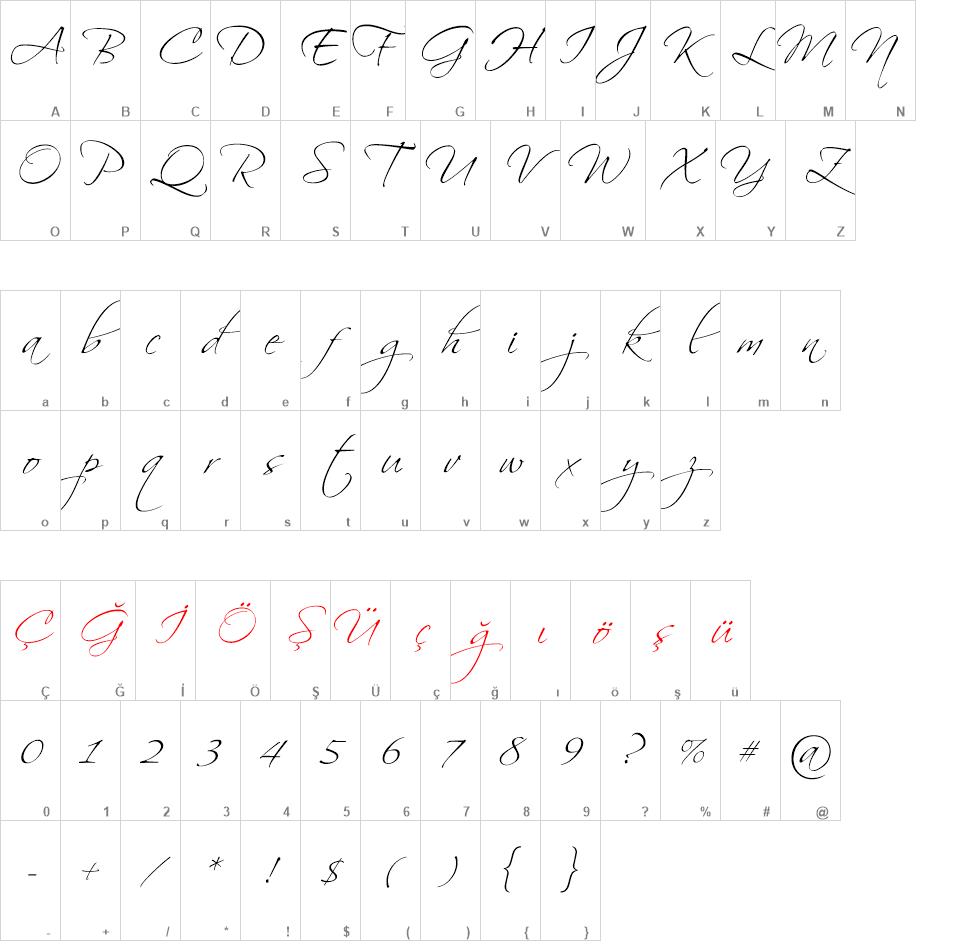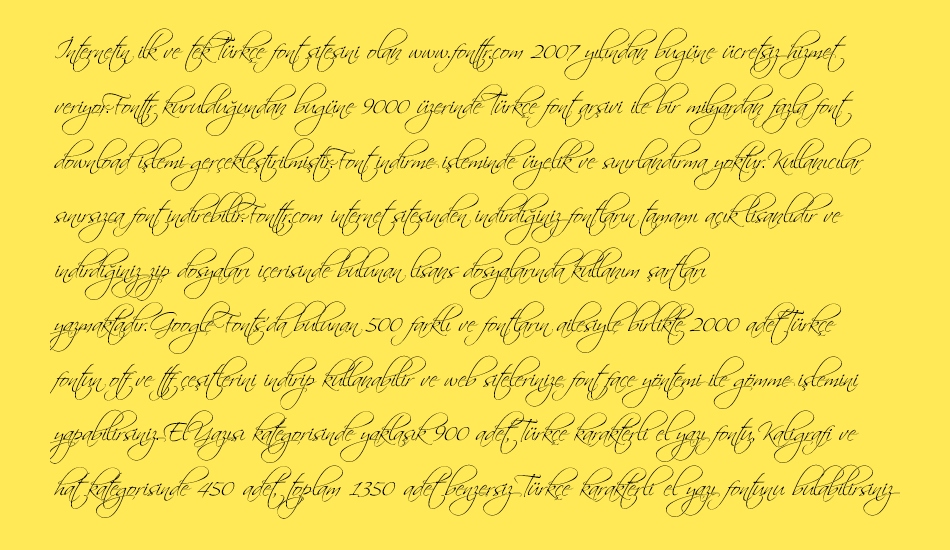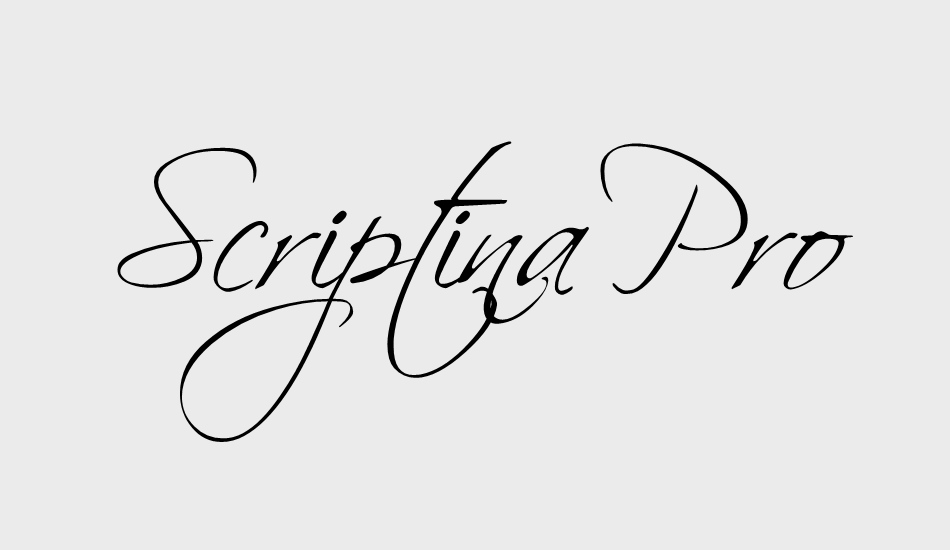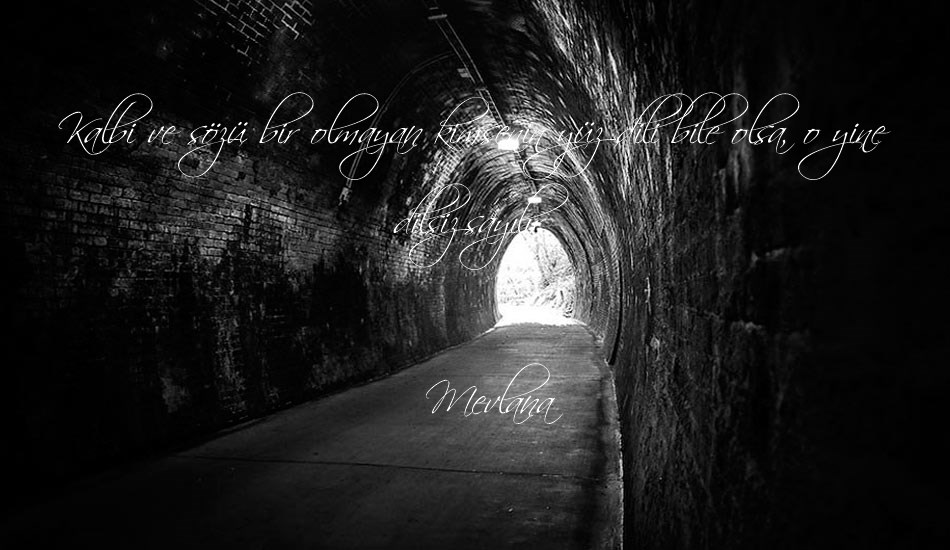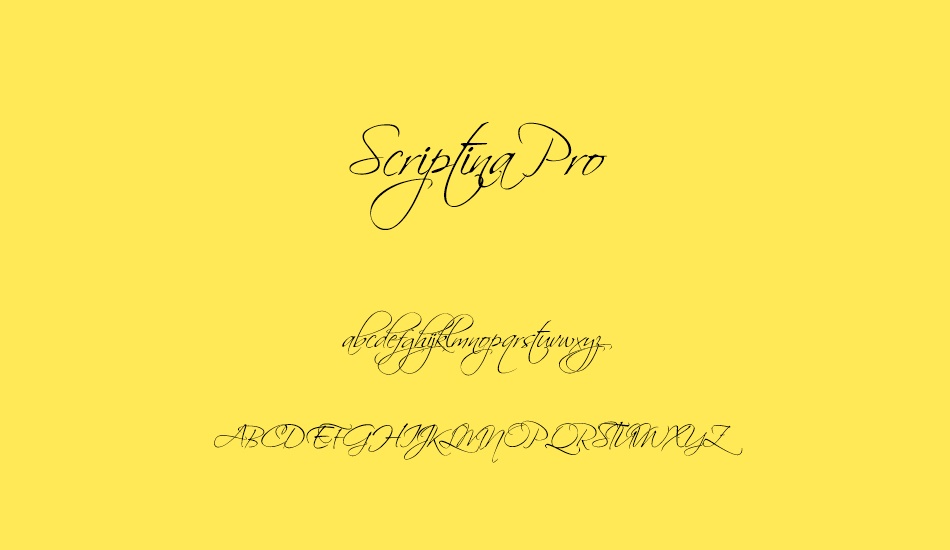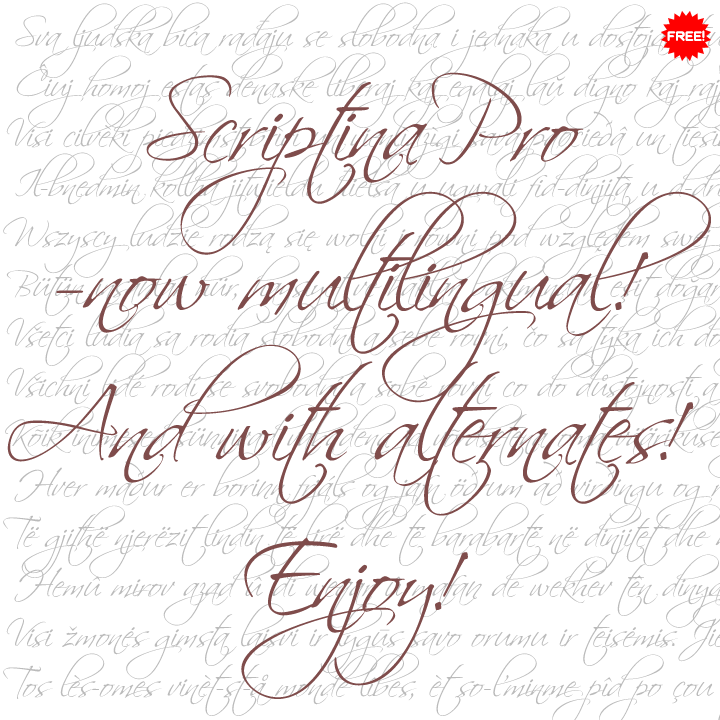
Scriptina Pro font
Scriptina Pro
This is the 100th font released by CheapProFonts, and I wanted to make something special - so I have chosen to upgrade one of the most popular free fonts ever: the one and only Scriptina by the infamous Fredrick "Apostrophe" Nader!
After first cleaning up the outlines, spacing and kerning, Scriptina Pro has been expanded with a set of alternate letters without the loops and swashes, using the OpenType contextual alternates feature to switch them around automatically to avoid too many overlapping and repeating elements. You can also manually turn off the loops and swashes with the OpenType titling and swash features respectively. The originals alternate letters have been incorporated as stylistic alternates (and stylistic set 02) and the ligatures as discretionary ligatures if you should want them. The alternate non-script lowercase z is programmed as stylistic set 01.
In addition Scriptina Pro has been given the usual CheapProFonts large multilingual character set, of course. I hope many will enjoy the improvements and additional language support.
ALL fonts from CheapProFonts have very extensive language support:
They contain some unusual diacritic letters (some of which are contained in the Latin Extended-B Unicode block) supporting: Cornish, Filipino (Tagalog), Guarani, Luxembourgian, Malagasy, Romanian, Ulithian and Welsh.
They also contain all glyphs in the Latin Extended-A Unicode block (which among others cover the Central European and Baltic areas) supporting: Afrikaans, Belarusian (Lacinka), Bosnian, Catalan, Chichewa, Croatian, Czech, Dutch, Esperanto, Greenlandic, Hungarian, Kashubian, Kurdish (Kurmanji), Latvian, Lithuanian, Maltese, Maori, Polish, Saami (Inari), Saami (North), Serbian (latin), Slovak(ian), Slovene, Sorbian (Lower), Sorbian (Upper), Turkish and Turkmen.
And they of course contain all the usual "western" glyphs supporting: Albanian, Basque, Breton, Chamorro, Danish, Estonian, Faroese, Finnish, French, Frisian, Galican, German, Icelandic, Indonesian, Irish (Gaelic), Italian, Northern Sotho, Norwegian, Occitan, Portuguese, Rhaeto-Romance, Sami (Lule), Sami (South), Scots (Gaelic), Spanish, Swedish, Tswana, Walloon and Yapese.